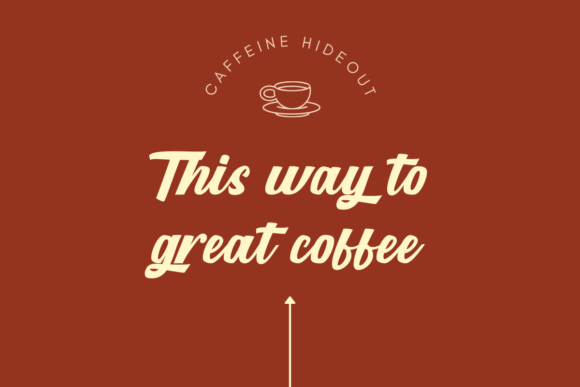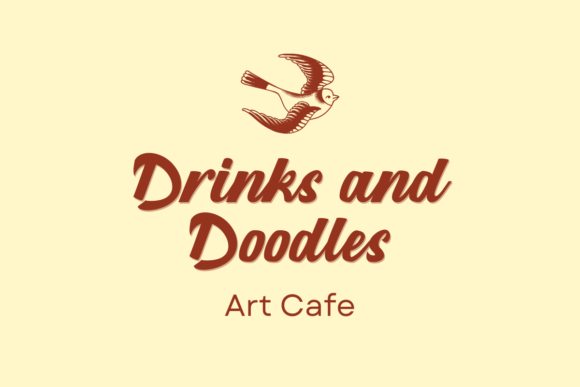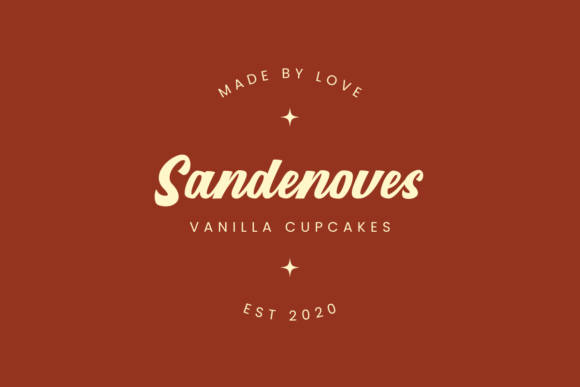
Introduction to Longevity Font
Introducing the stunning longevity bold script sont, a true masterpiece of typography that will bring elegance and sophistication to any design project.
Crafted with the utmost attention to detail, this font boasts an exquisite hand-lettered script style, complete with bold strokes and delicate flourishes that add a touch of luxury to any text This font is PUA encoded which means you can access all glyphs and swashes effortlessly.
Longevity Font offers exceptional quality and versatility, making it a valuable addition to your design toolkit. Whether you’re creating for personal projects or commercial use, Longevity Font delivers professional results.